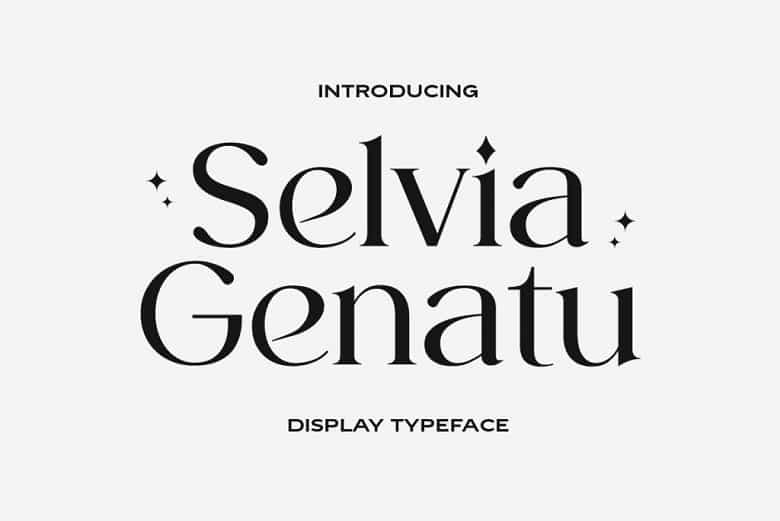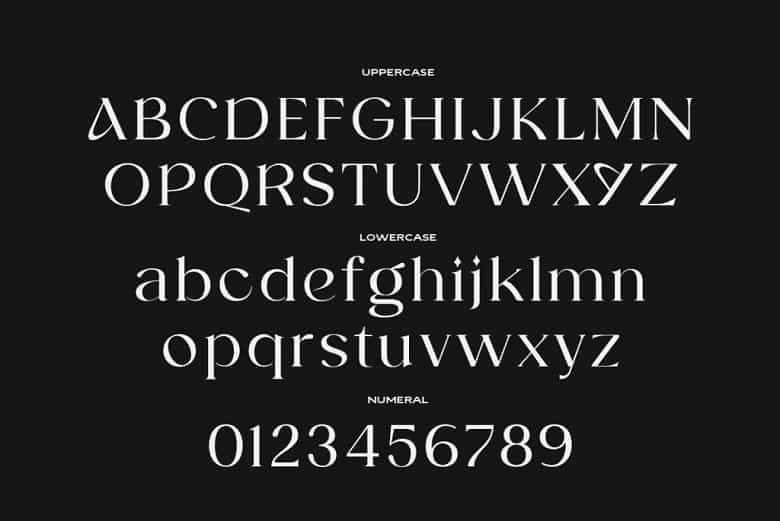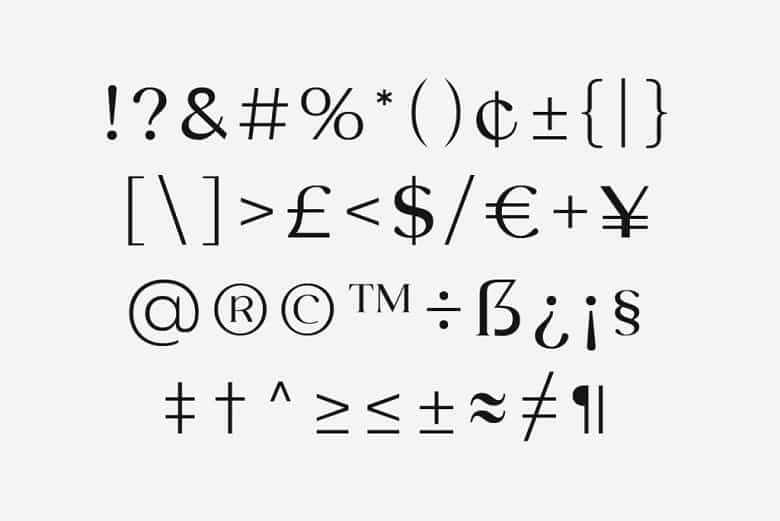
Selvia Genatu is a professional serif font that has that old-style display feel to it while at the same time can easily be used for current projects. The design of this font involves curves and the design makes the font create beautiful harmony. Just ideal for any project whether it is a wedding invitation or a corporate design.